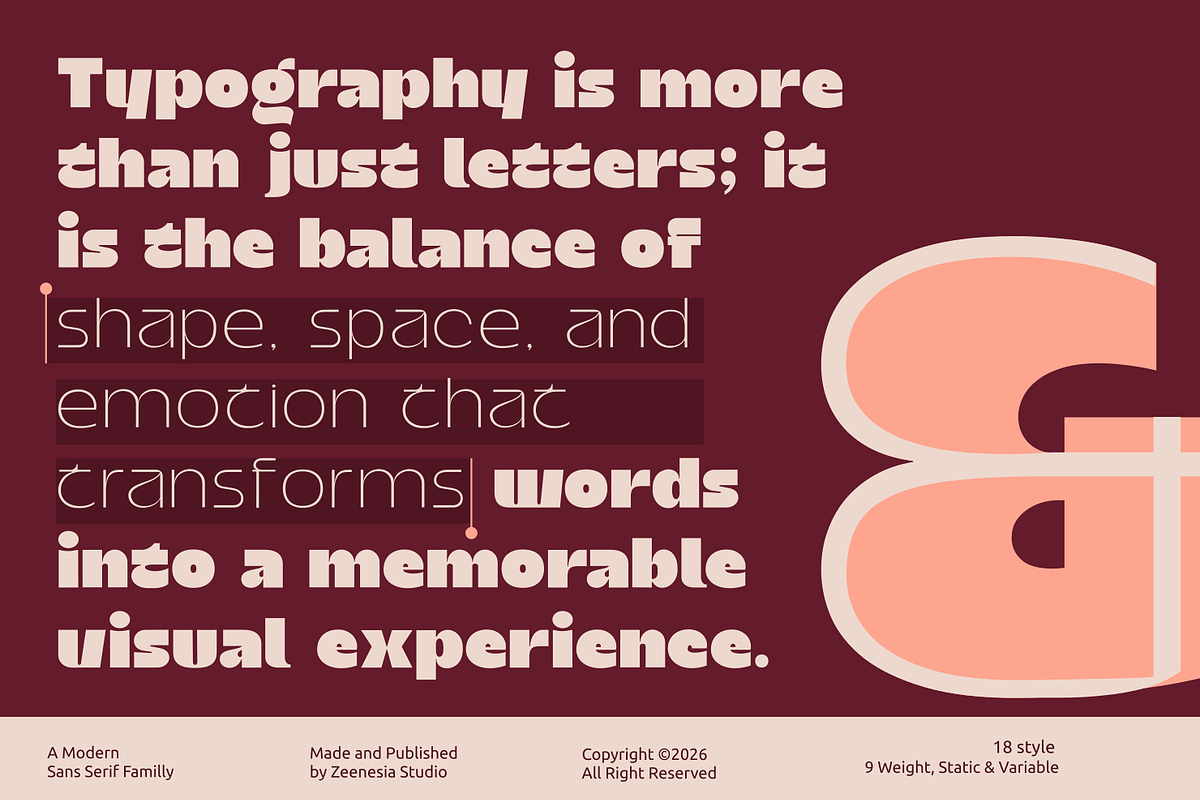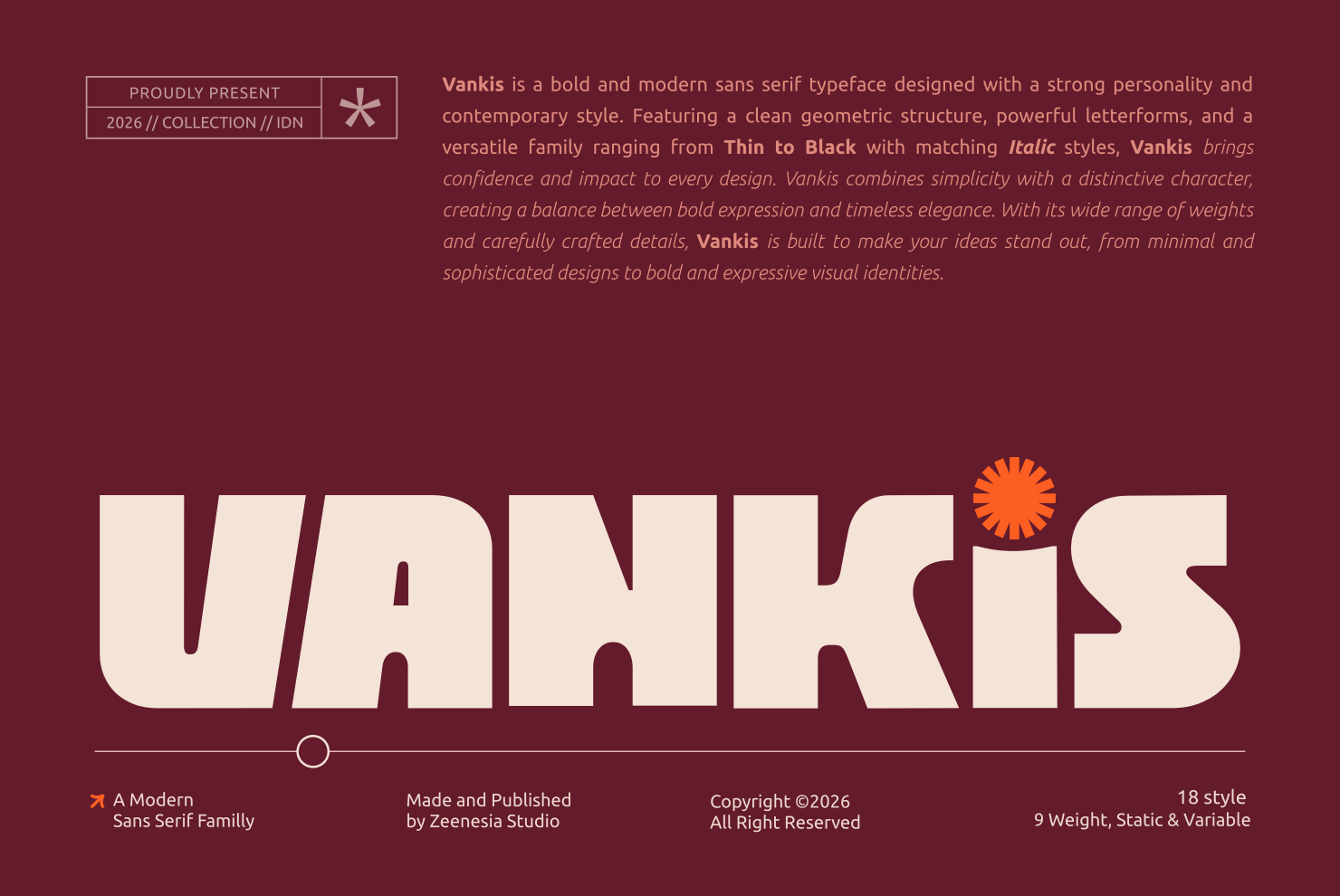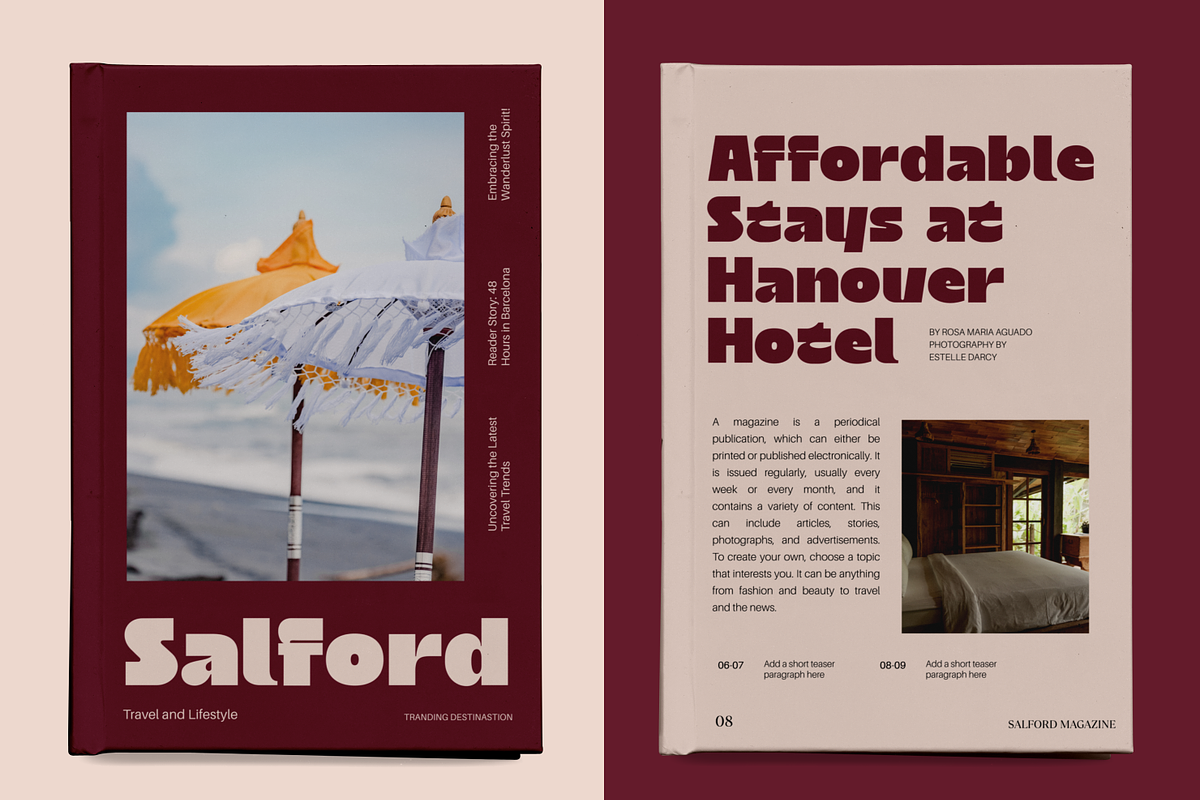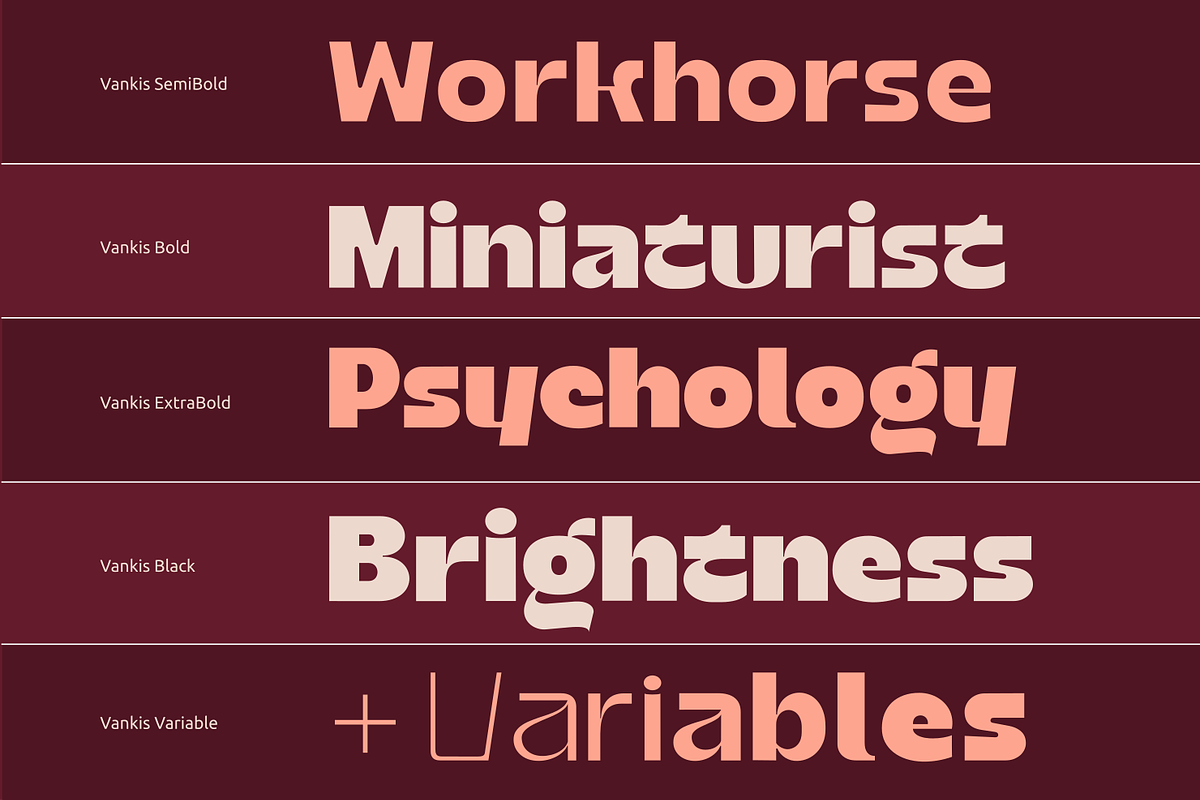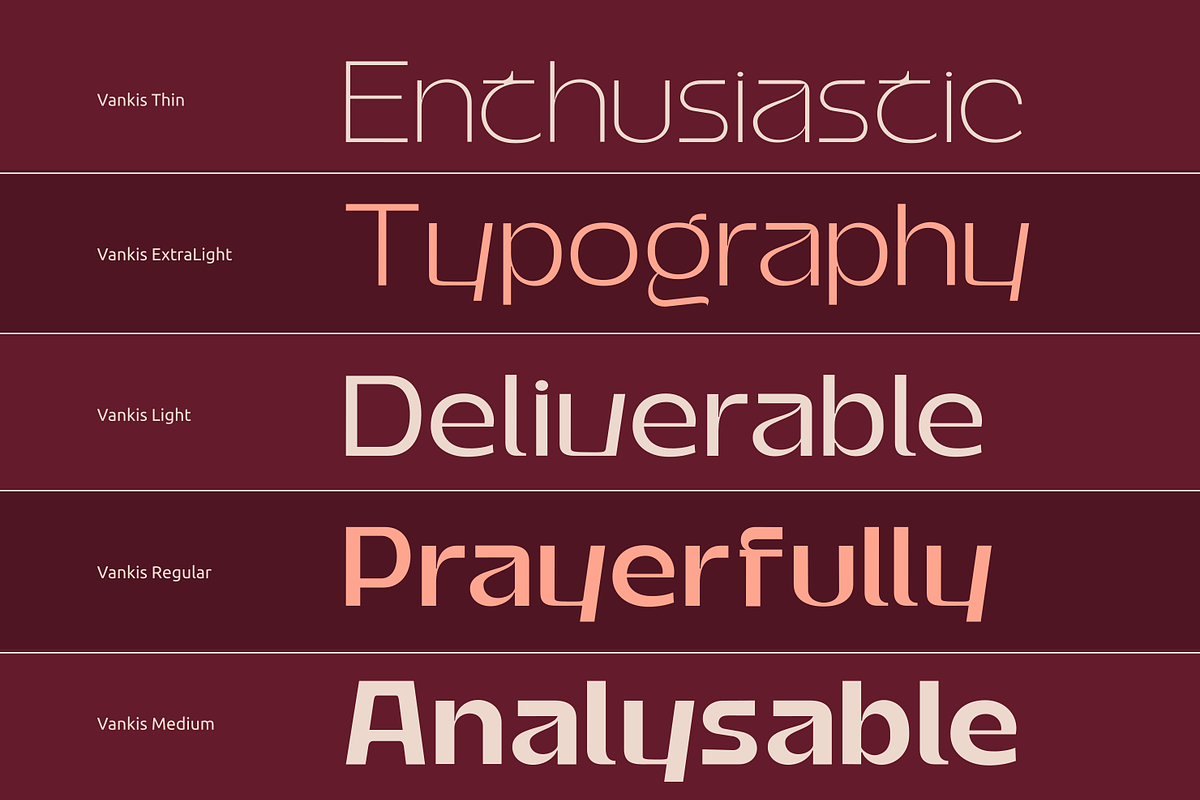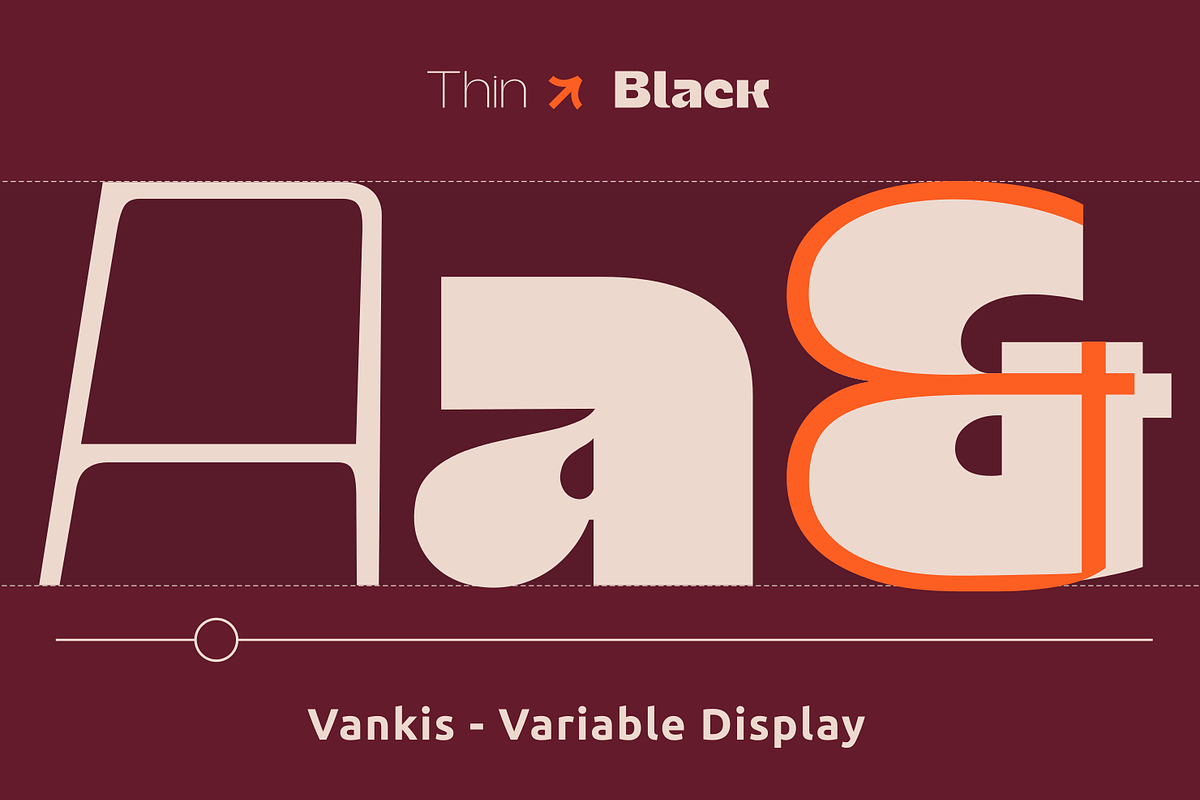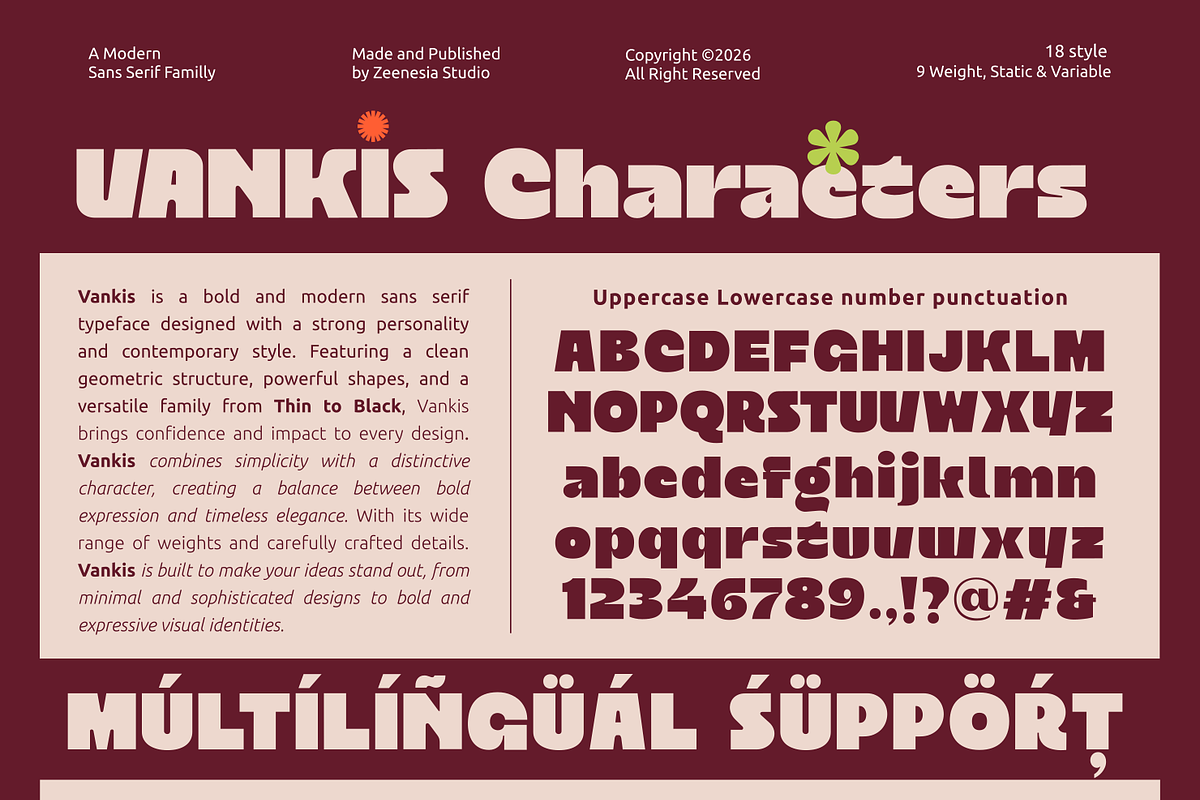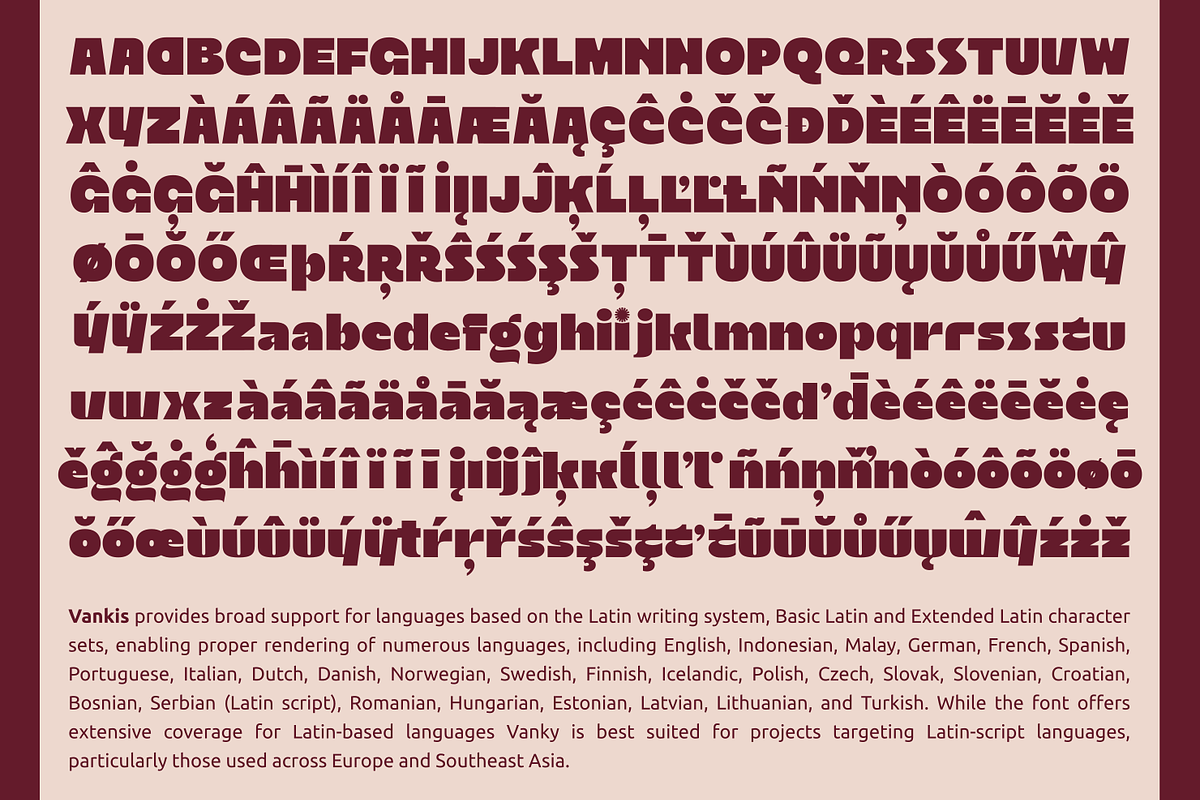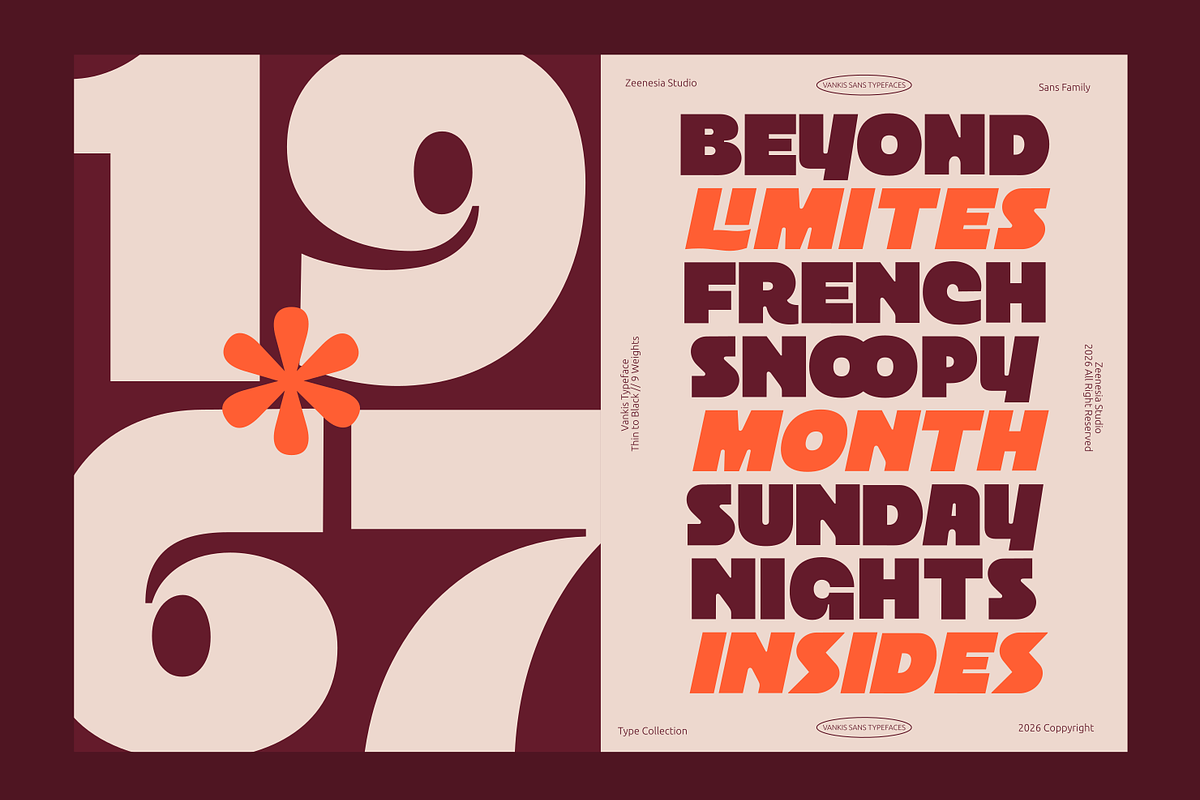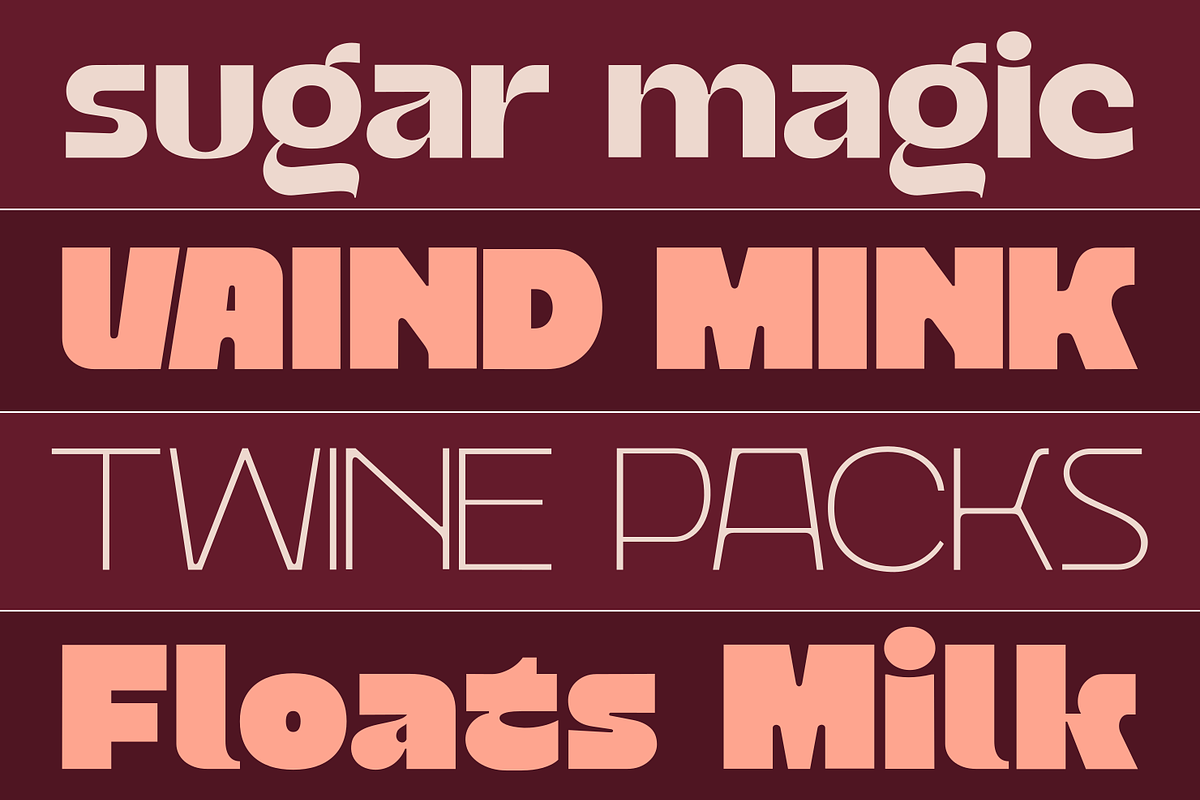
Vankis Font Family
Vankis is a bold and modern sans serif typeface designed with a strong personality and contemporary style. Featuring a clean geometric structure, powerful letterforms, and a versatile family ranging from Thin to Black with matching Italic styles, Vankis brings confidence and impact to every design. Vankis combines simplicity with a distinctive character, creating a balance between bold expression and timeless elegance. With its wide range of weights and carefully crafted details, Vankis is built to make your ideas stand out, from minimal and sophisticated designs to bold and expressive visual identities.